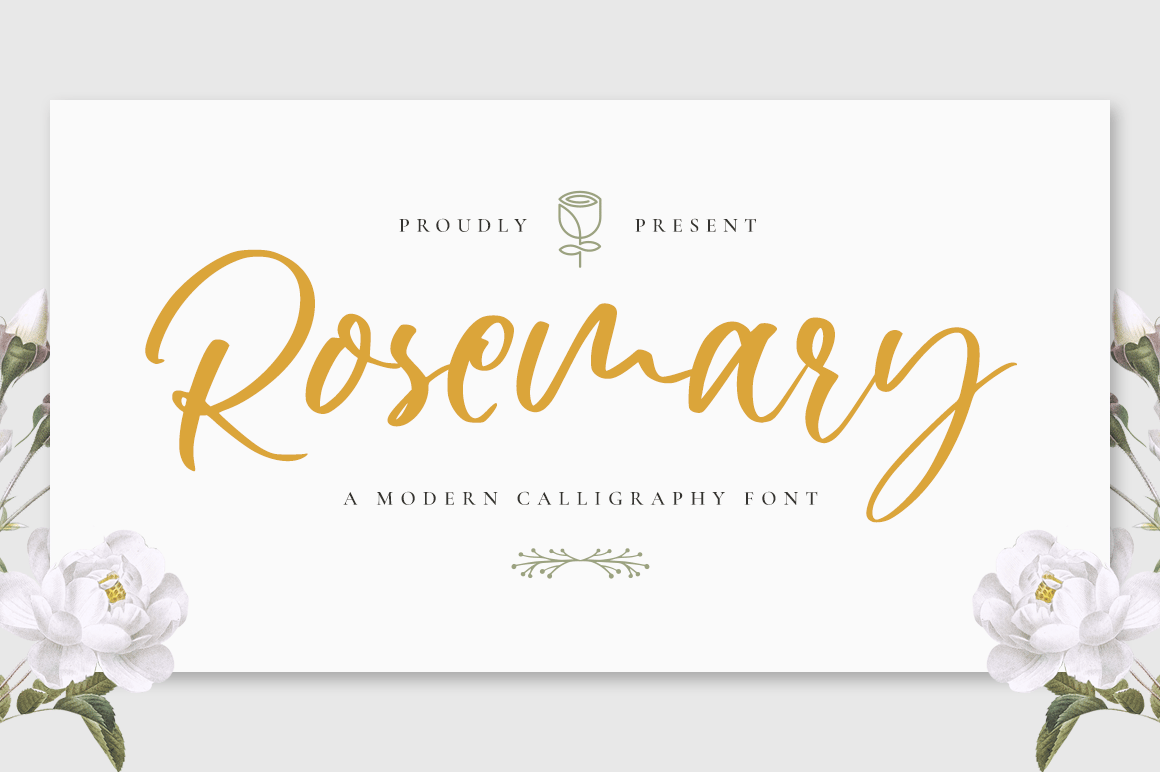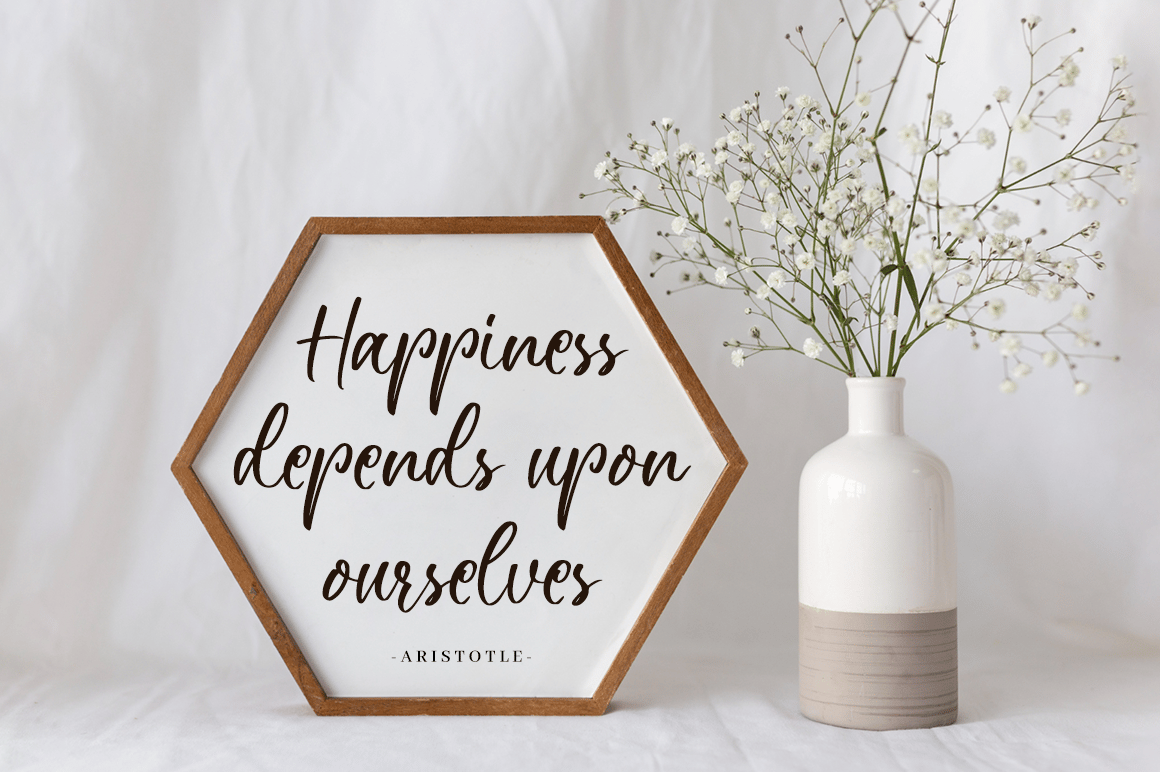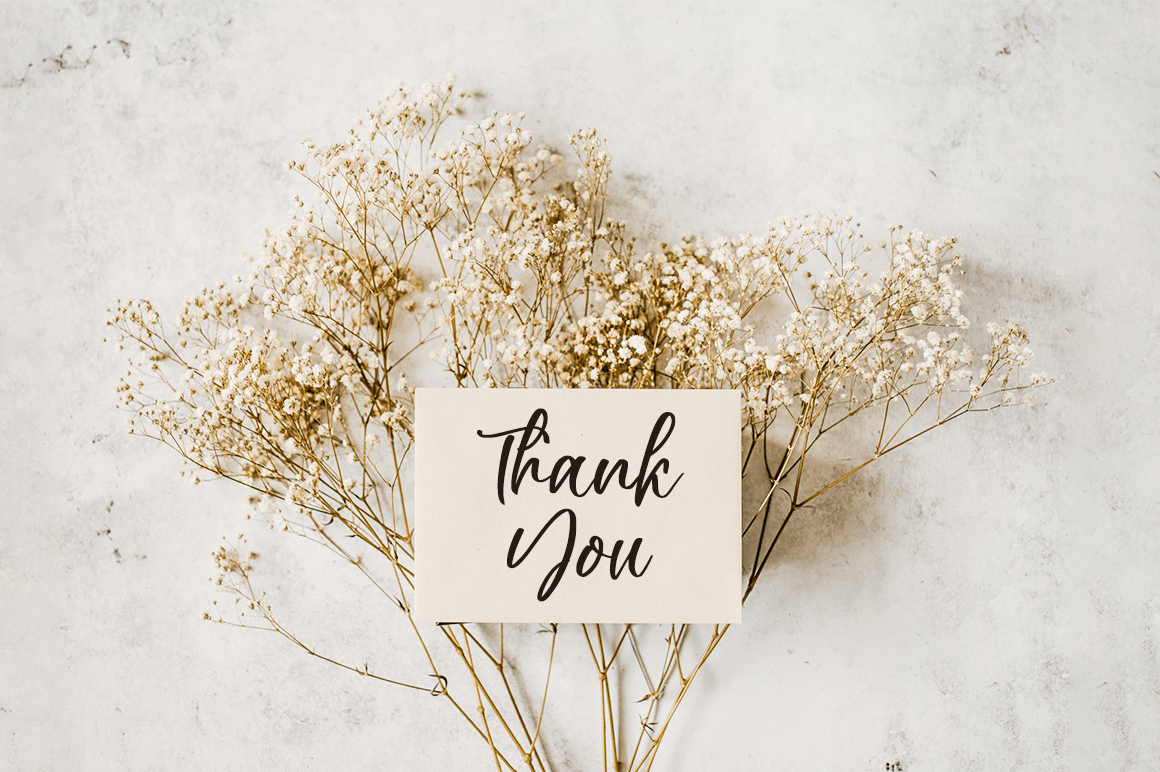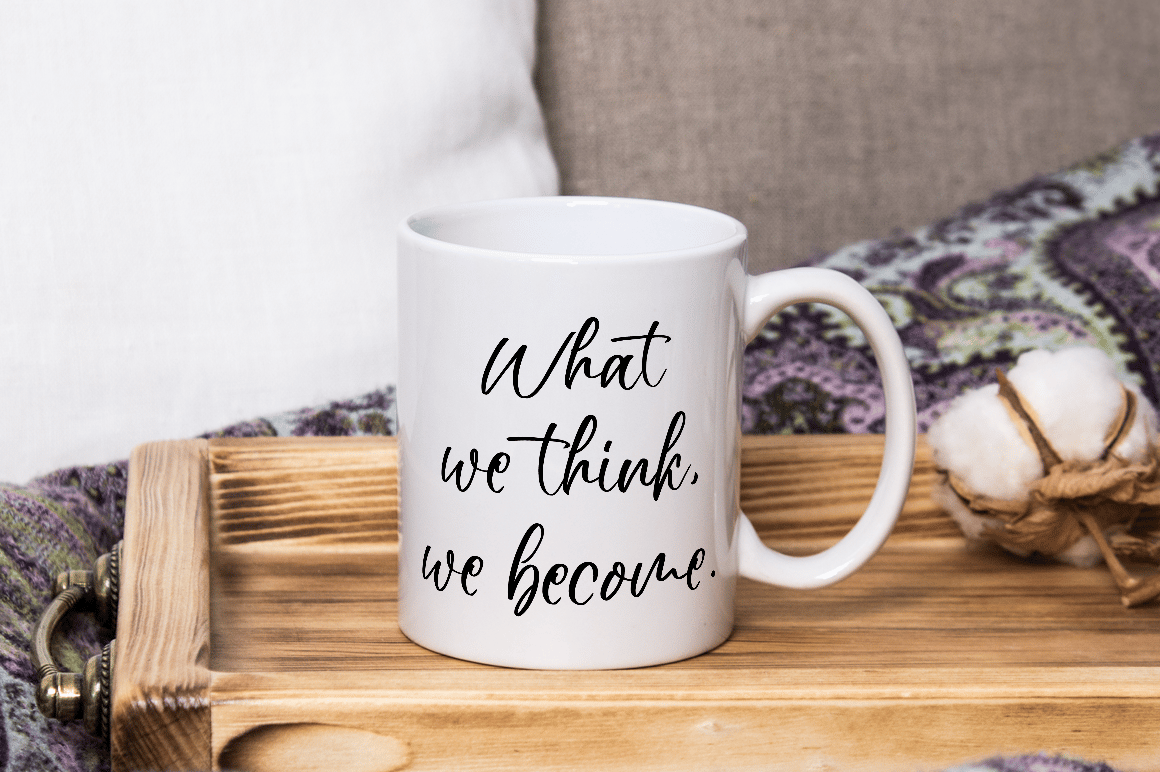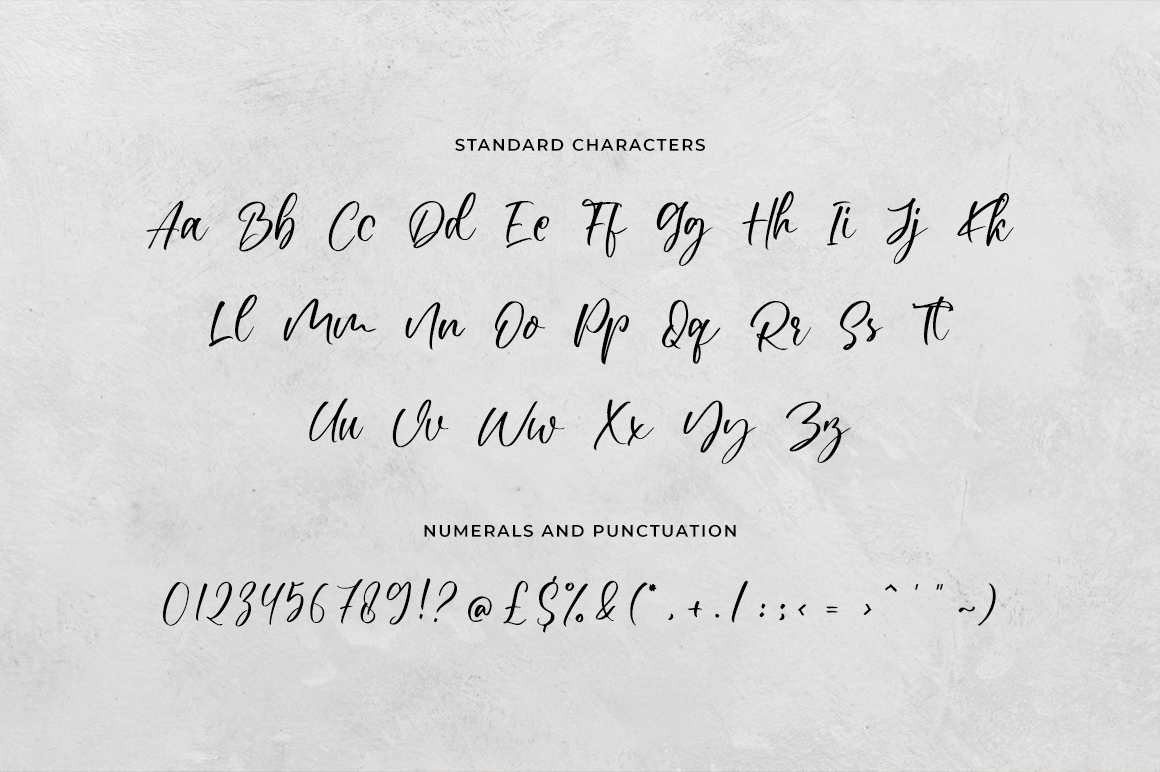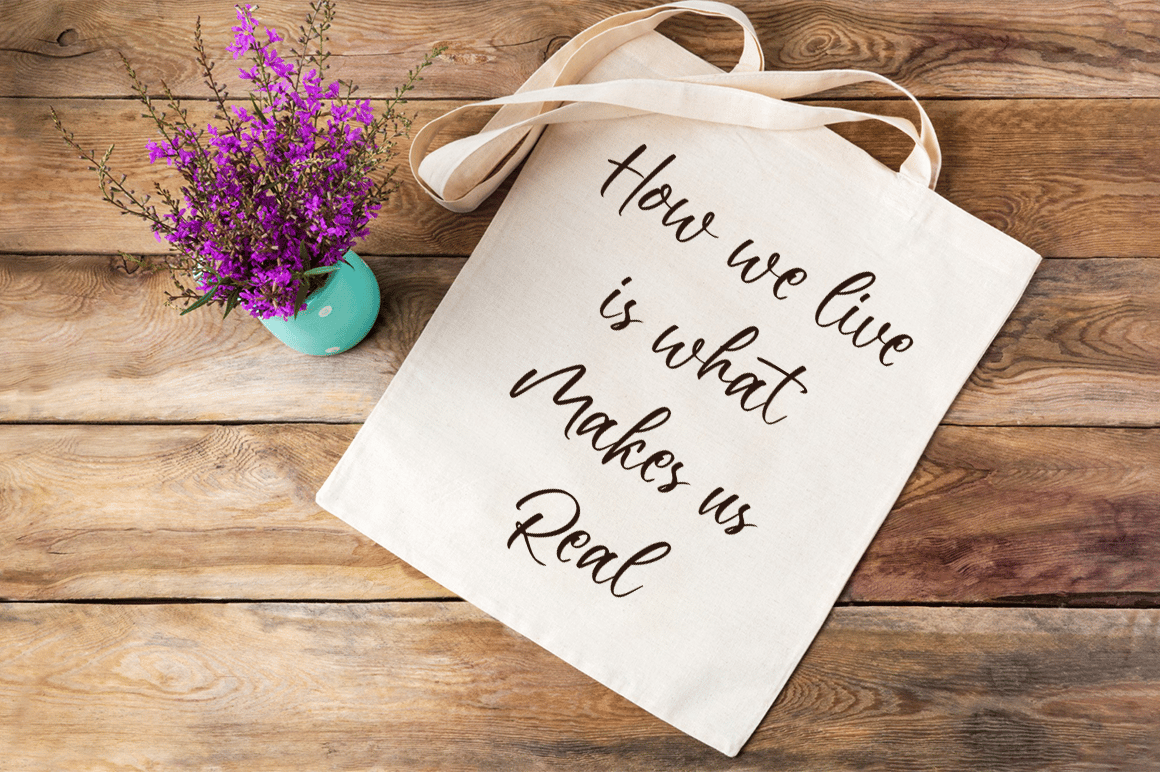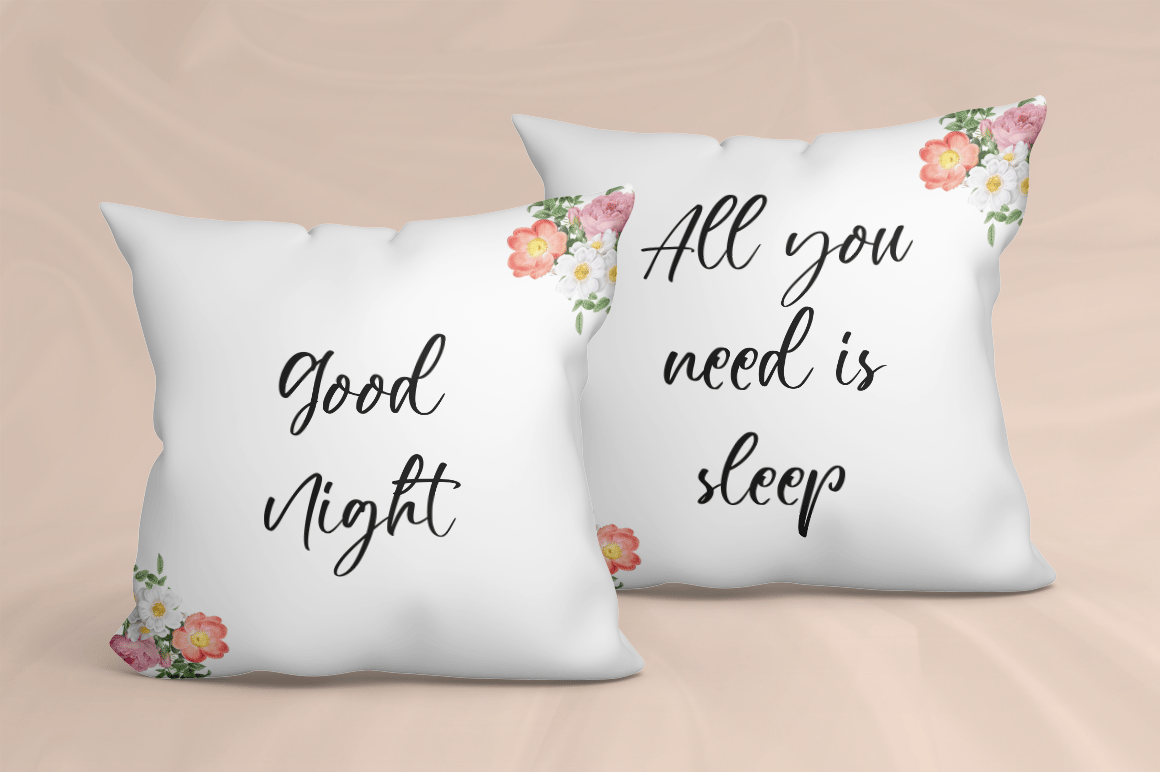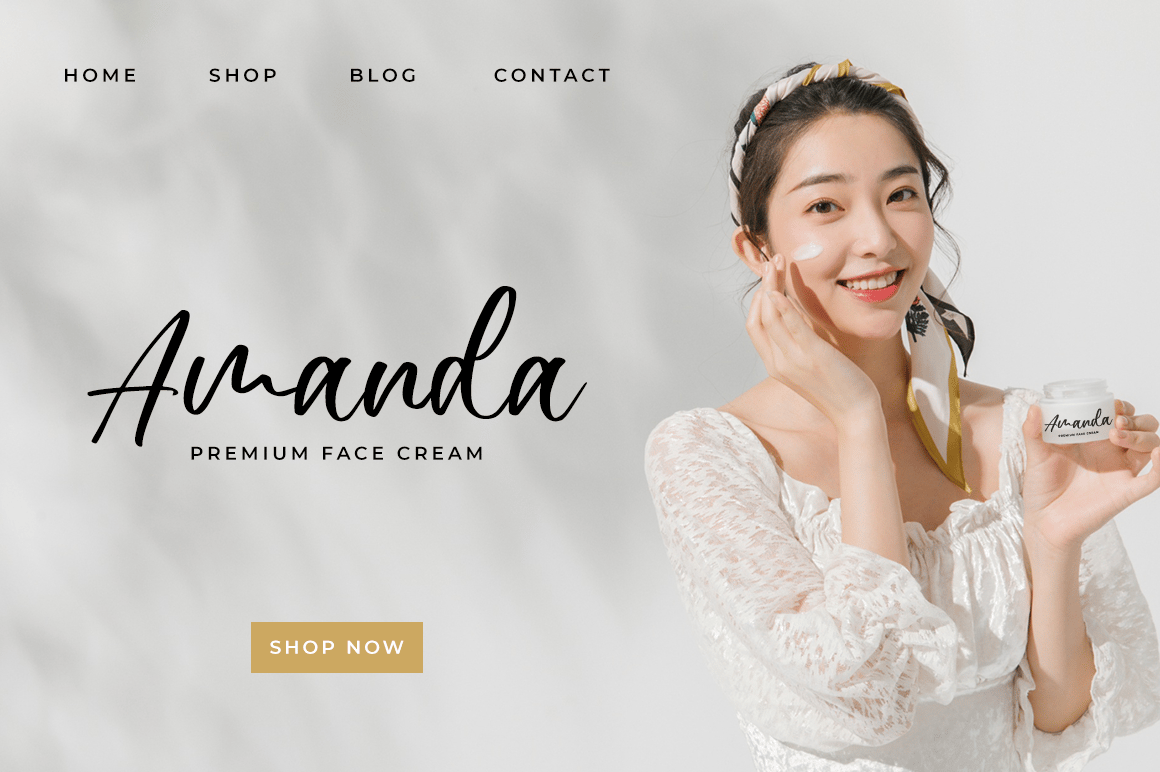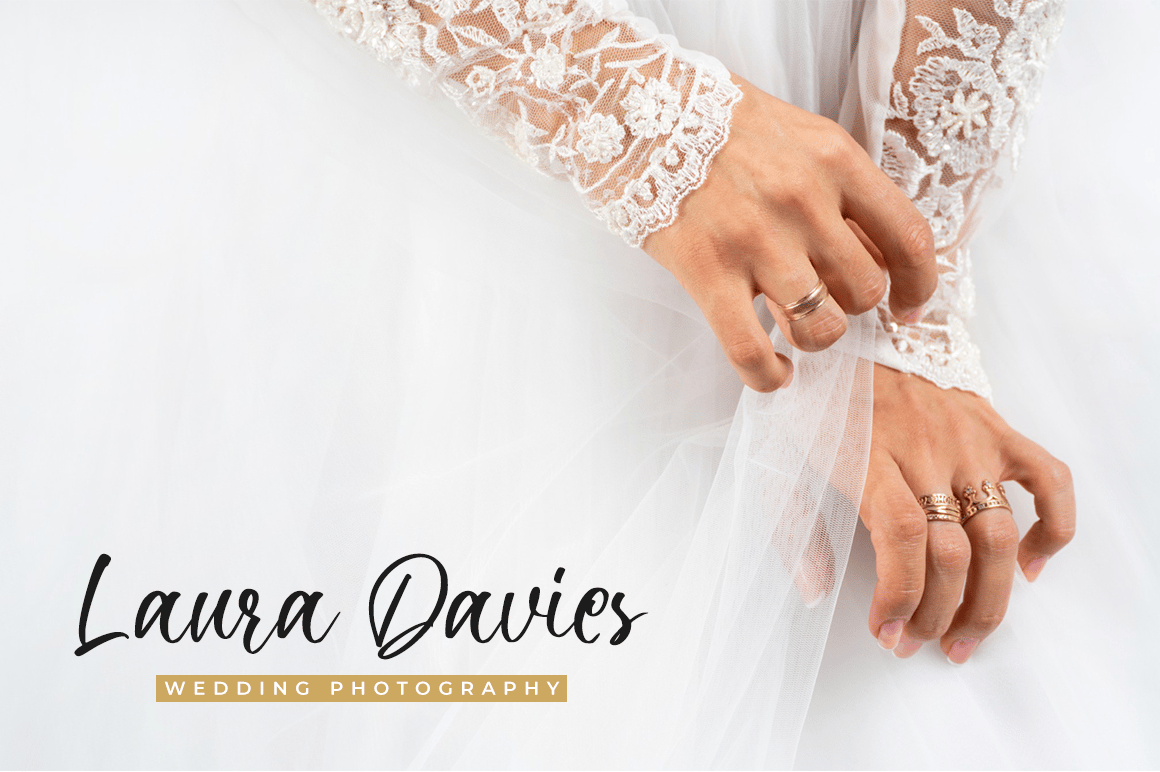
Rosemary – Wedding Font
Rosemary is a dazzling script font. This font is neatly crafted and highly detailed. Whatever the topic, this font will be a wonderful asset to your font library, as it has the potential to enhance any creation.